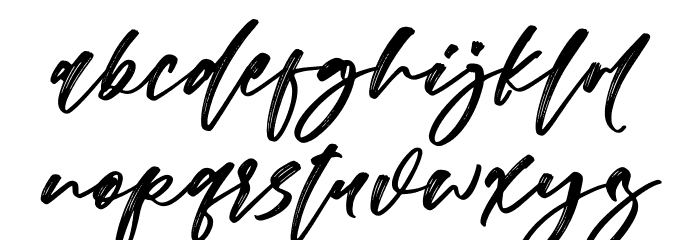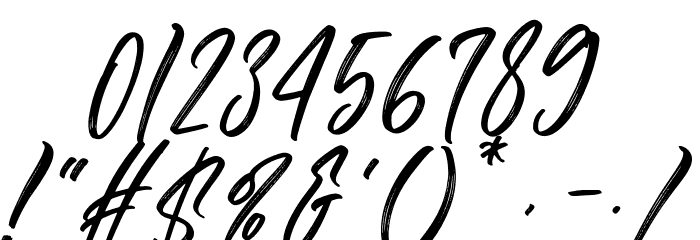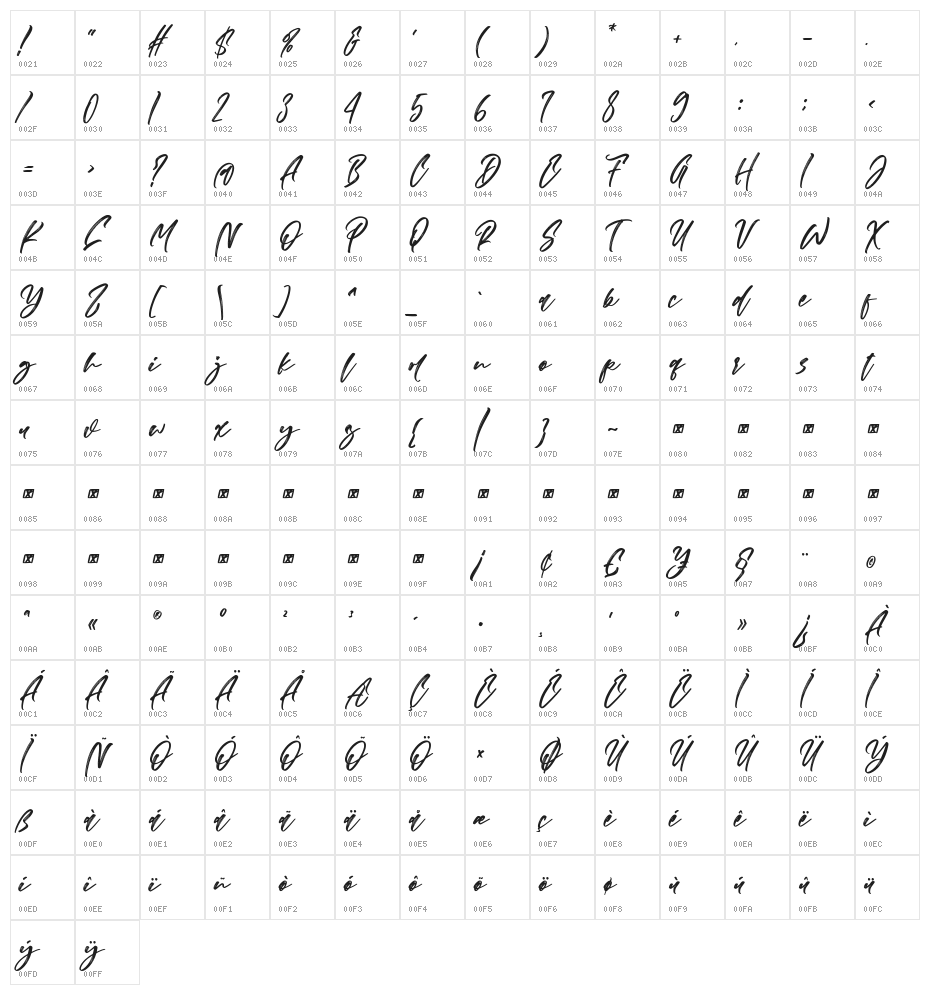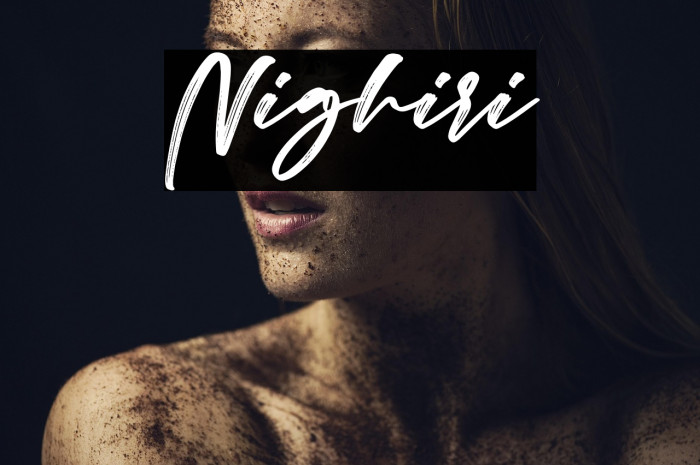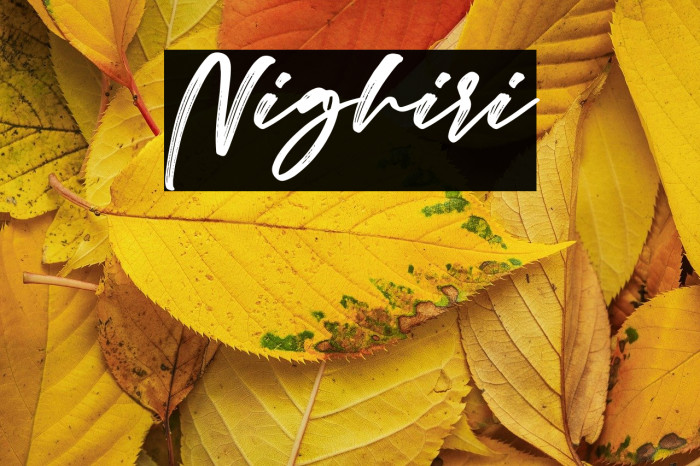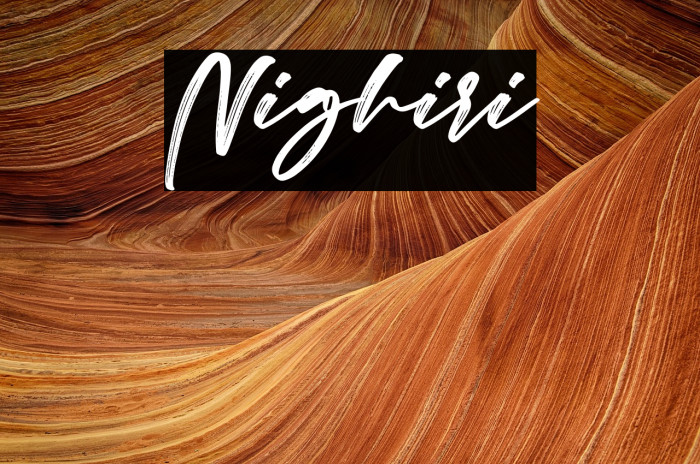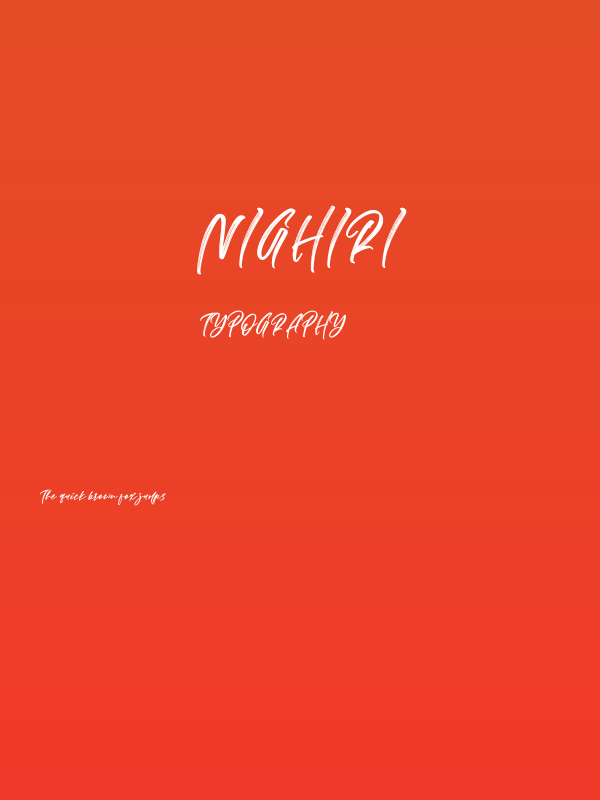
Nighiri Font
This font exudes a dynamic and energetic feel with its bold, handwritten style. The letters are fluid and connected, giving a sense of movement and spontaneity. The strokes vary in thickness, adding a lively and expressive character to the text. The uppercase letters maintain a consistent height, while the lowercase letters are slightly smaller, enhancing readability. Numbers and special characters are crafted with the same energetic flair, ensuring a cohesive look across all text elements. This font is perfect for projects that require a personal touch or an artistic vibe.
A bold, handwritten font with dynamic strokes and a lively character.
- Proposed Projects: Ideal for branding, invitations, greeting cards, and artistic projects.
- Use Case: Logos, Headlines, Artistic projects